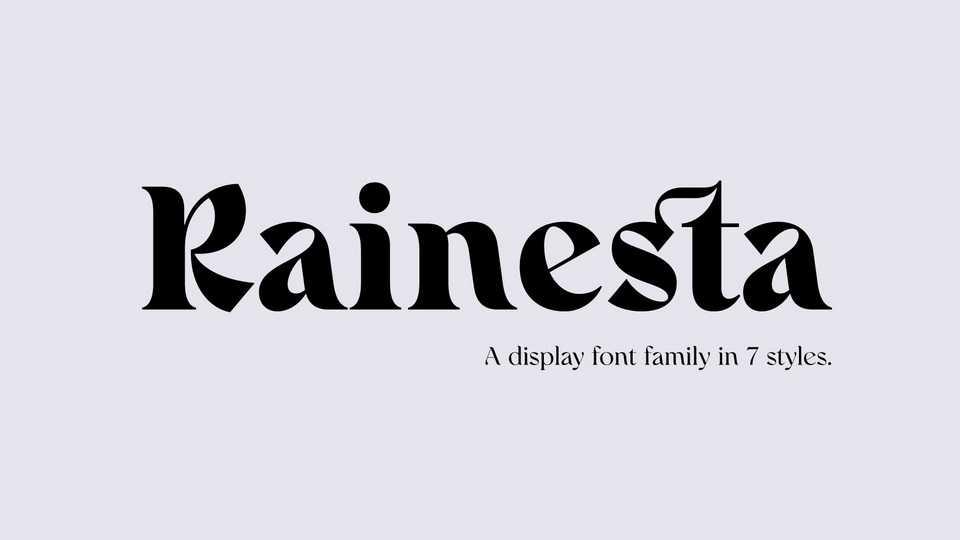
Download Rainesta is an elegant display typeface. Rainesta font is very suitable to be applied to various other formal forms such as websites, e-books, labels, logos, magazines, books, packaging, fashion, make-up, stationery, labels, or all kinds of advertising purposes.